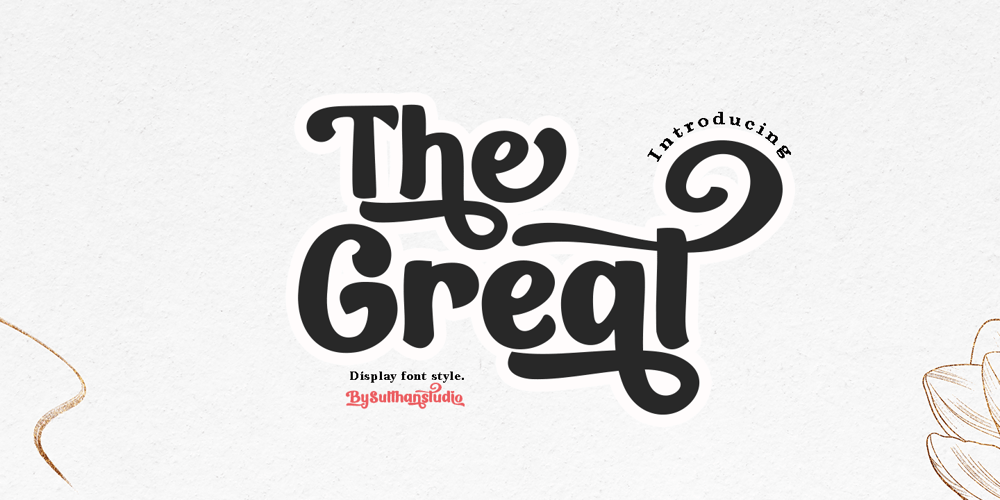
The great Font Family was designed by Nasrullah and published by Sulthan Studio. The great contains 1 styles and family package options. The great display font.The great -This font is perfect for modern projects, quotes, shirt designs, websites, branding, children’s designs, svg designs, blogs, logos, invitations and more!The great – includes alternative characters. Coded with Unicode PUA, which allows full access to all additional characters without having special design software. Mac users can use Font Book. Windows users can use the Character Map to view and copy one of the additional characters to paste into your favorite text editor.